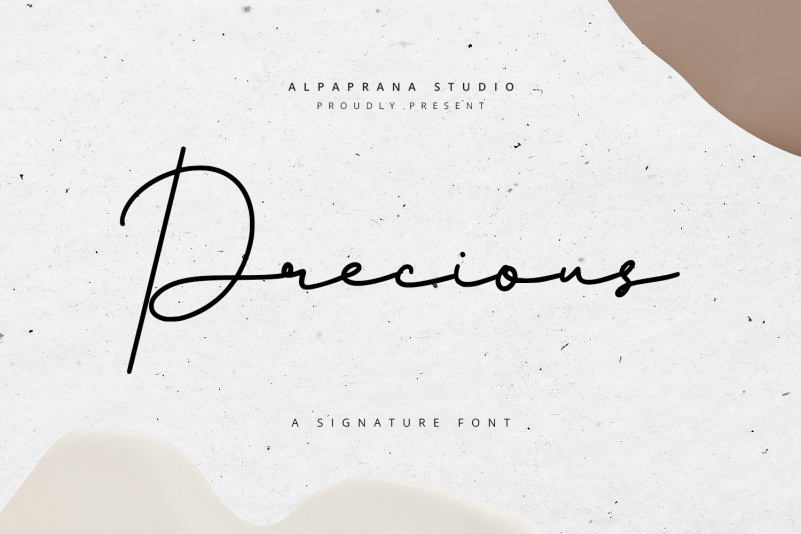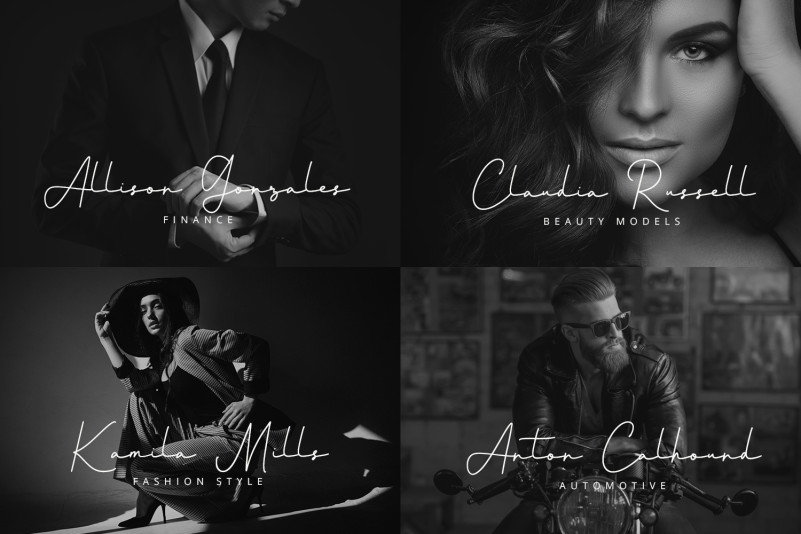
Precious Font
Precious Script Font is a signature font with natural and modern feels. It will be perfectly used for Branding, Logo Design, Lettering, Logotype, Clothing, Poster, magazine, packaging, posters, shopping bags, t-shirts, book covers, photography, special events and other design project.